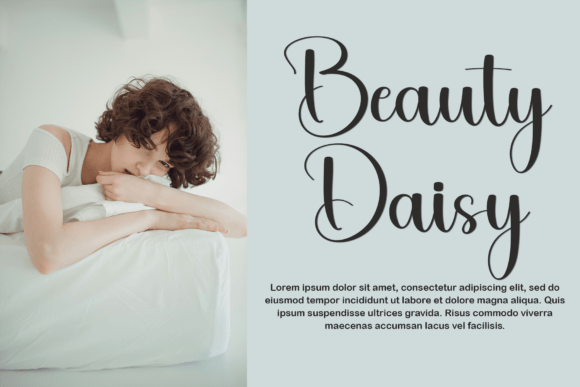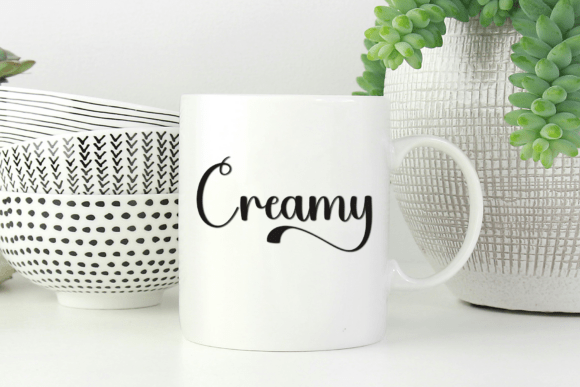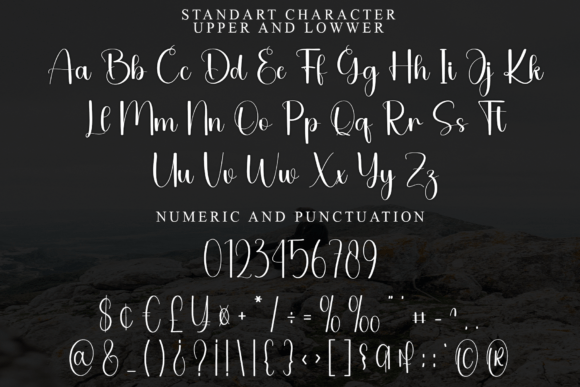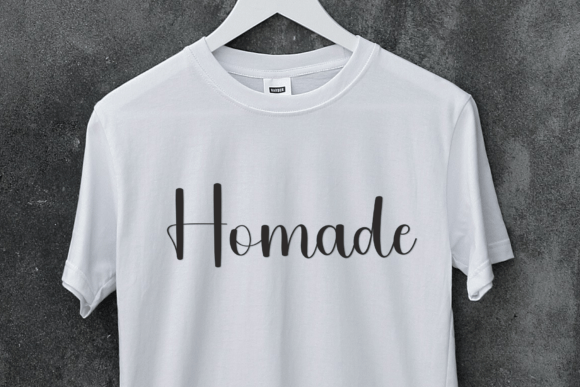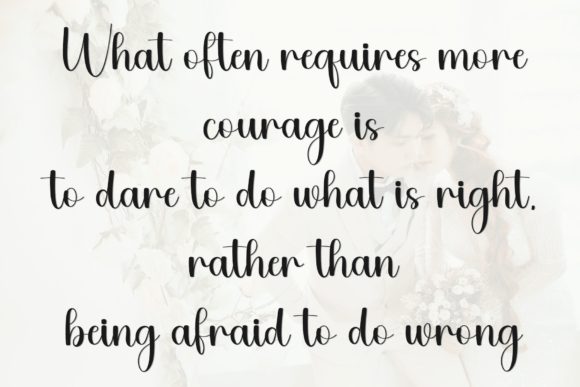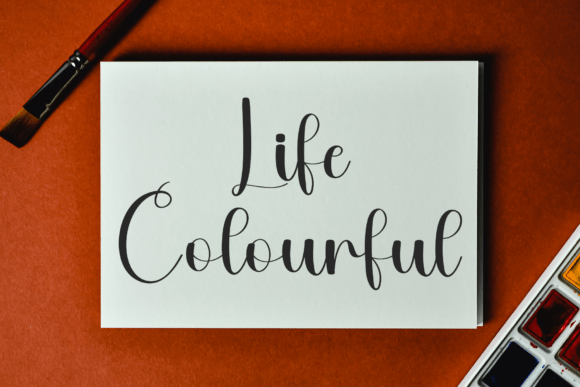
The Perfect Touch: Unlocking the Beauty of Beauty Font
Have you ever stared at a blank canvas, feeling the urge to create something beautiful and unique? The spark of inspiration can strike at any moment, and when it does, you want to be ready. For designers, finding the right font can make all the difference between a decent design and a truly stunning one.
That’s where Beauty Font comes in – a beautiful and eye-catching font designed to add a soft, unique touch to your work. With its distinctive strokes and versatility, it’s perfect for a wide range of design projects, crafts, and creative endeavors. Whether you’re working on a logo, brochure, or website, Beauty Font is an excellent choice to enhance your designs and captivate your audience.
Beauty Font Key Features
- Unique Characteristics: Beauty Font features a unique blend of elegant and modern design elements, making it ideal for use in high-end branding, advertising, and editorial projects.
- Font Style: The font comes in 5 different styles: Regular, Italic, Bold, Bold Italic, and Outline, providing designers with a range of options to suit their design needs.
Beauty Font Review
As a designer, I was excited to dive into Beauty Font and see what it had to offer. I was pleasantly surprised by its elegant and modern aesthetic ✨. The font is perfect for creating a sophisticated and luxurious feel in any design project. The letterforms are well-crafted and the spacing is spot on.
The font also comes with a wide range of weights, from light to bold, giving designers the flexibility to create stunning typography ✨. The font’s versatility and compatibility with various digital platforms make it a great choice for both print and web design.
Overall, I’m impressed with Beauty Font’s design and versatility. While it may have some limitations, the font’s beauty and elegance make it a great choice for designers who want to create stunning typography. If you’re looking for a high-end font for your next project, Beauty Font is definitely worth considering.
- ✨ Elegant and modern aesthetic
- ✨ Wide range of weights
- ✨ Versatile and compatible with various digital platforms
Beauty Font is ideal for creating eye-catching social media posts, blog titles, and headings.
Beauty Font is perfect for creating custom typography for logos, branding materials, and marketing collateral.
Beauty Font is ideal for creating engaging presentations, reports, and documents.
Beauty Font is perfect for:
- Social media posts and captions
- Blog titles and headings
- Marketing collateral and advertisements
With its elegant and sophisticated design, Beauty Font is sure to elevate your visual content and make a lasting impression.
Alternatives to Beauty Font
Playfair Display is a luxurious, high-end serif font that is perfect for creating a sense of elegance and sophistication. It’s ideal for use in high-end fashion magazines, luxury brands, and special occasion invitations.
Compared to Beauty Font, Playfair Display is more formal and less playful, making it a better choice for serious and professional applications. While Beauty Font is more versatile and can be used in a wide range of contexts, Playfair Display is best suited for situations where you want to convey a sense of luxury and refinement.